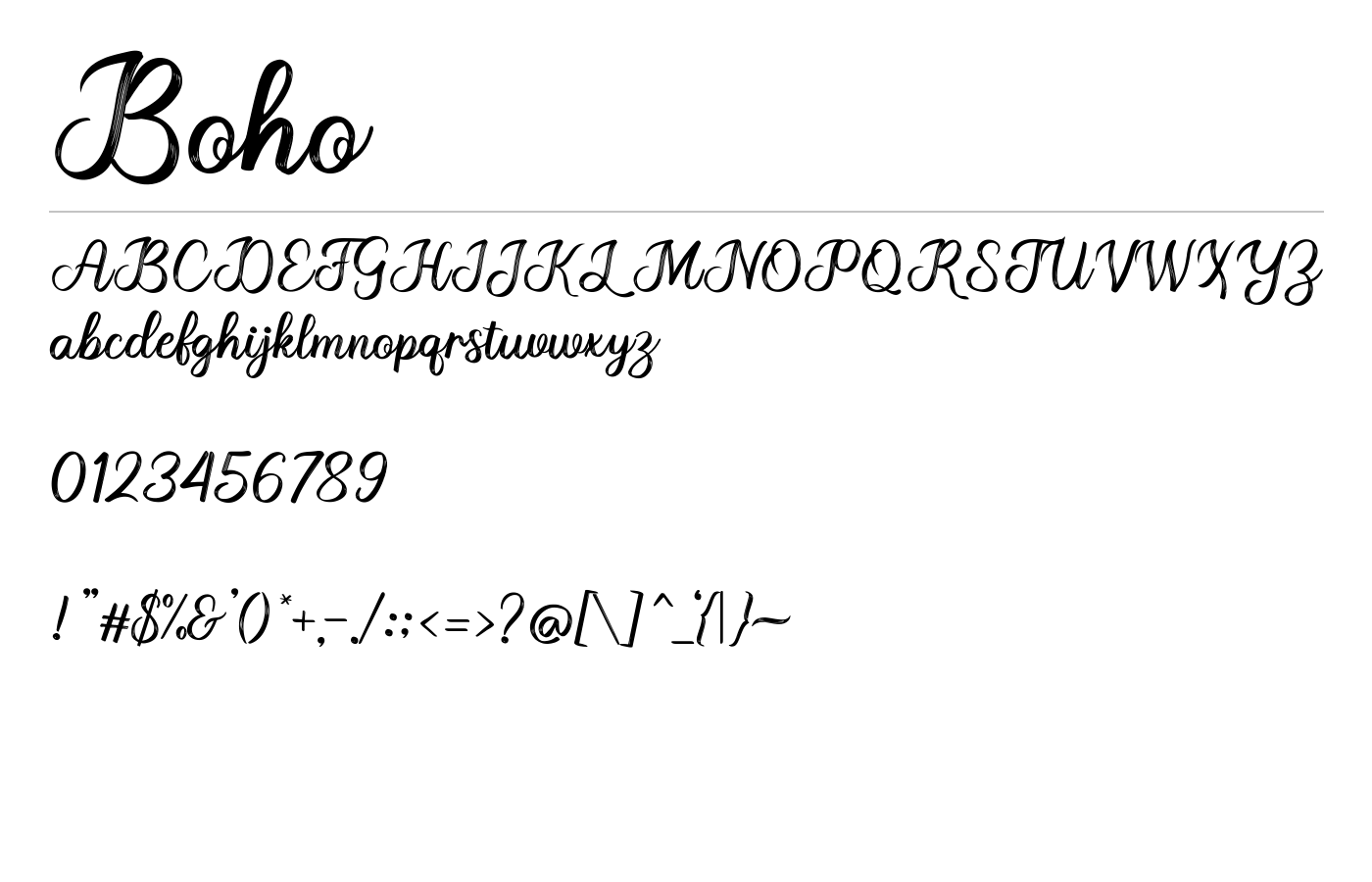
Boho Font is an elegant script typeface with a smooth, flowing style that combines delicate curves and refined strokes, giving it a graceful, handcrafted feel. Its slender weight and slightly condensed letterforms make it perfect for stylish logos, invitations, and branding that seeks a chic, modern yet timeless personality. This font works beautifully in creative and fashion contexts where a personal, elegant touch is desired.
Boho Font
About Boho Font